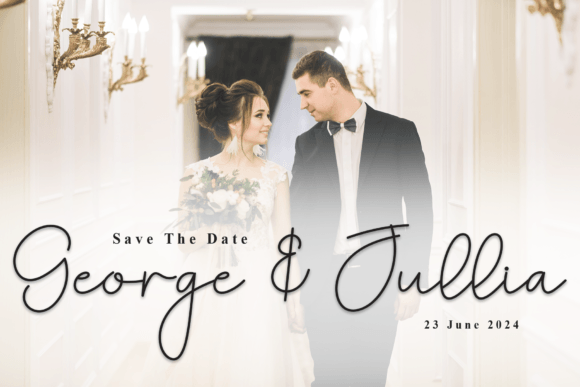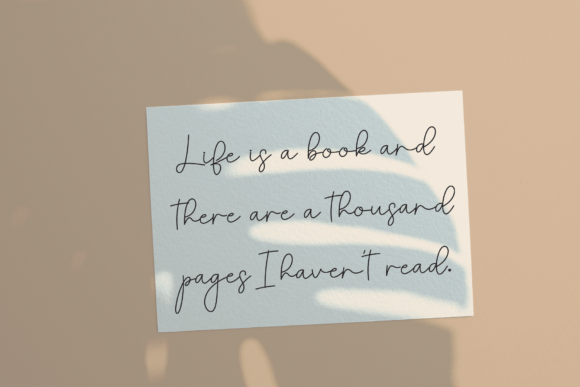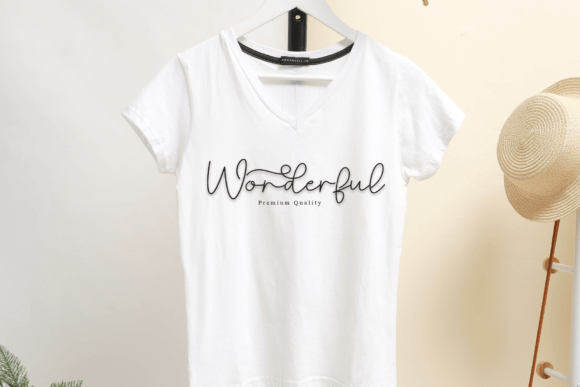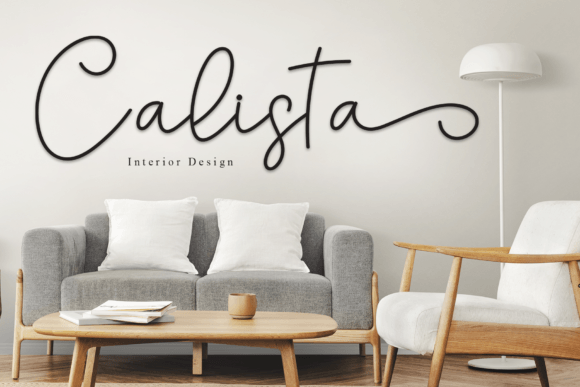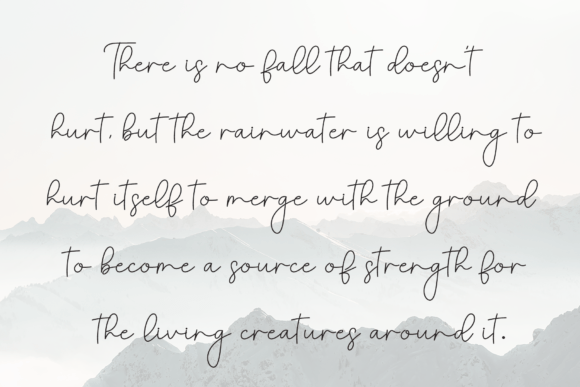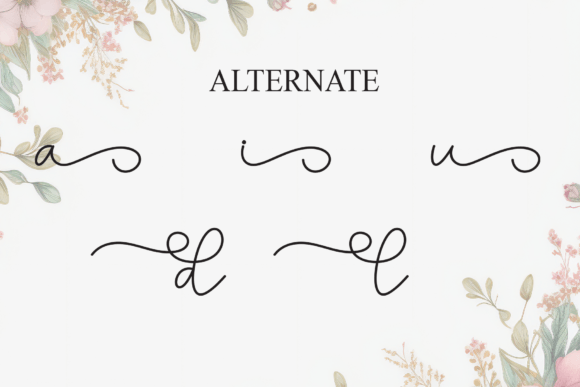
Introducing Carolina Font: Elevate Your Designs with Elegance and Sophistication
Are you a designer or crafter looking for a font that exudes elegance and sophistication? Look no further than the stunning Carolina Font. This beautiful script font is perfect for adding a touch of handmade charm to a variety of design projects, from wedding invitations and thank you cards to quotes, greeting cards, logos, and business cards.
The Beauty of Carolina Font
Carolina Font is a stylish and incredibly elegant script font that is sure to impress. Its flowing lines and delicate curves give it a romantic and whimsical feel, making it perfect for designs that require a touch of sophistication. Whether you’re creating a wedding invitation or a business card, Carolina Font is sure to elevate your design and leave a lasting impression.
One of the best things about Carolina Font is its versatility. It’s perfect for a wide range of design projects, including:
- Wedding invitations: Add a touch of romance and elegance to your wedding invitations with Carolina Font.
- Thank you cards: Express your gratitude in style with Carolina Font.
- Quotes: Make your quotes stand out with the beautiful and elegant Carolina Font.
- Greeting cards: Add a personal touch to your greeting cards with Carolina Font.
- Logos: Create a sophisticated and elegant logo with Carolina Font.
- Business cards: Elevate your business cards with the stylish and professional Carolina Font.
Why Choose Carolina Font?
So why choose Carolina Font for your design projects? Here are just a few reasons:
- Elegance and sophistication: Carolina Font exudes elegance and sophistication, making it perfect for designs that require a touch of refinement.
- Versatility: Carolina Font is perfect for a wide range of design projects, from wedding invitations to business cards.
- Handwritten touch: Carolina Font has a beautiful handwritten touch that adds a personal and unique feel to your designs.
Tips for Using Carolina Font
Here are a few tips for using Carolina Font in your design projects:
- Pair it with a simple font: Carolina Font is a statement font, so pair it with a simple font to create a beautiful contrast.
- Use it for headings: Carolina Font is perfect for headings and titles, so use it to add a touch of elegance to your designs.
- Experiment with colors: Carolina Font looks beautiful in a variety of colors, so experiment with different colors to find the one that works best for your design.
In conclusion, Carolina Font is a beautiful and elegant script font that is perfect for designers and crafters looking to add a touch of sophistication to their designs. Its versatility, elegance, and handwritten touch make it perfect for a wide range of design projects, from wedding invitations to business cards. So why not give Carolina Font a try and see the difference it can make in your designs?